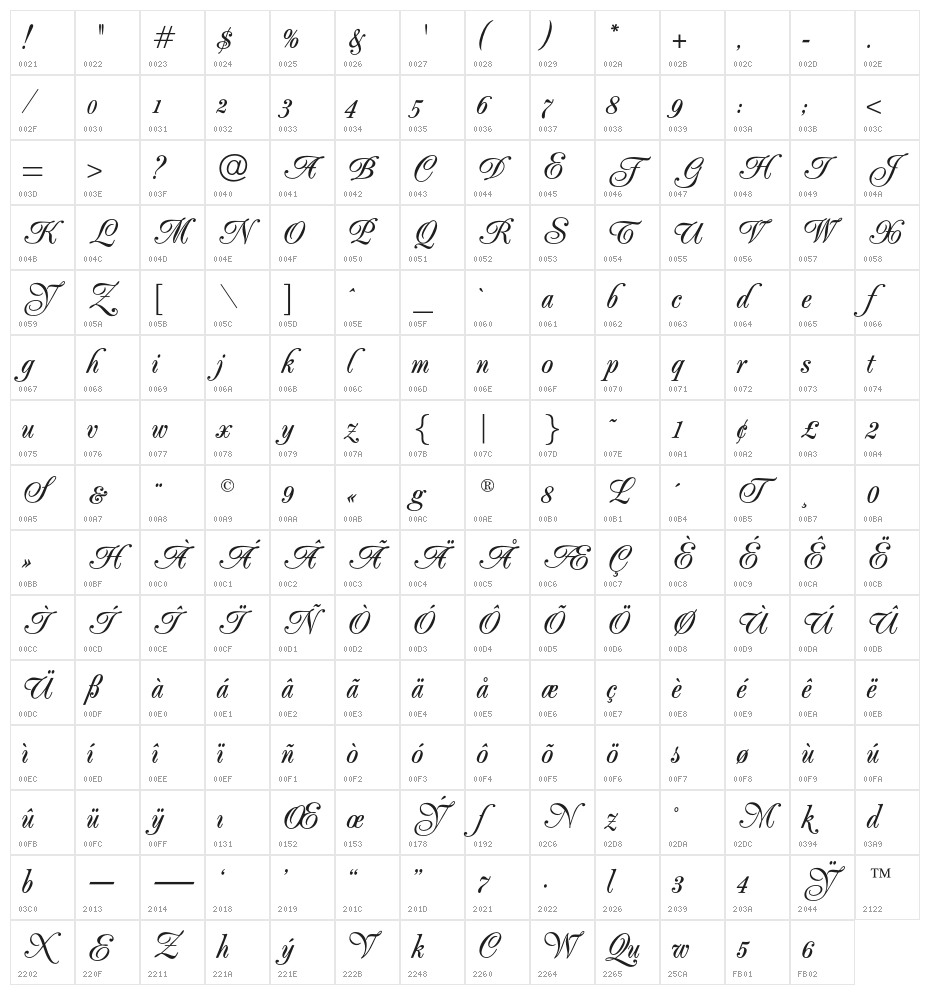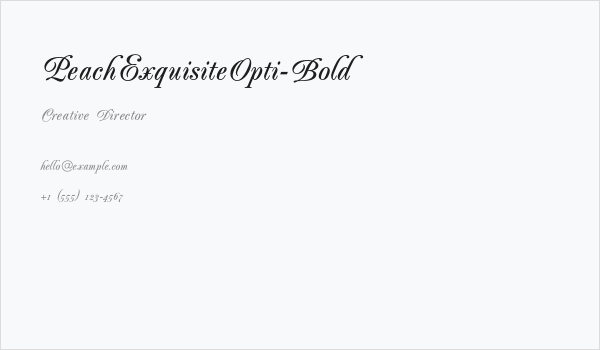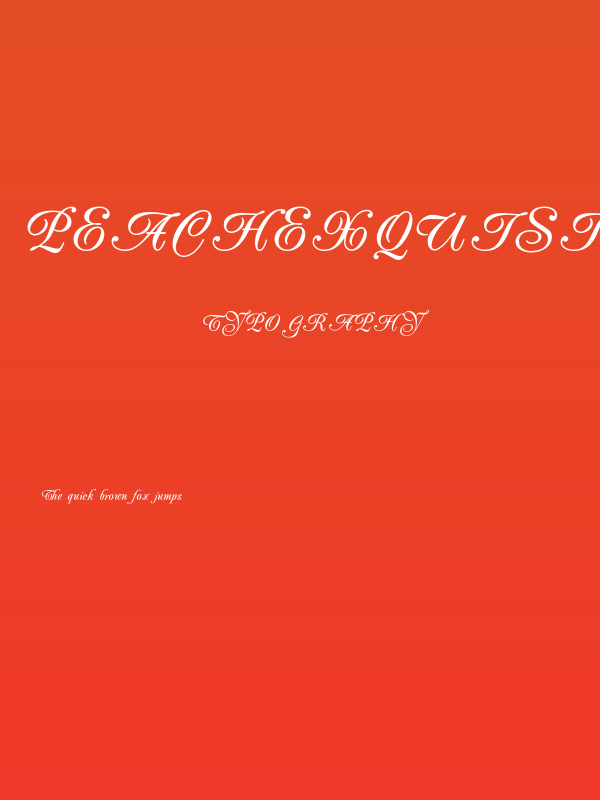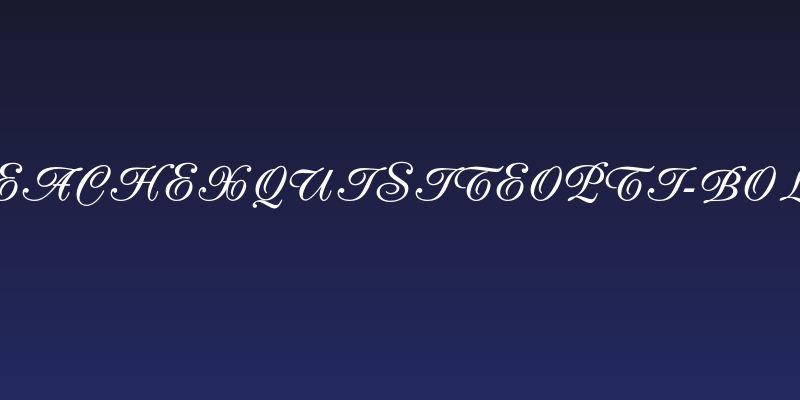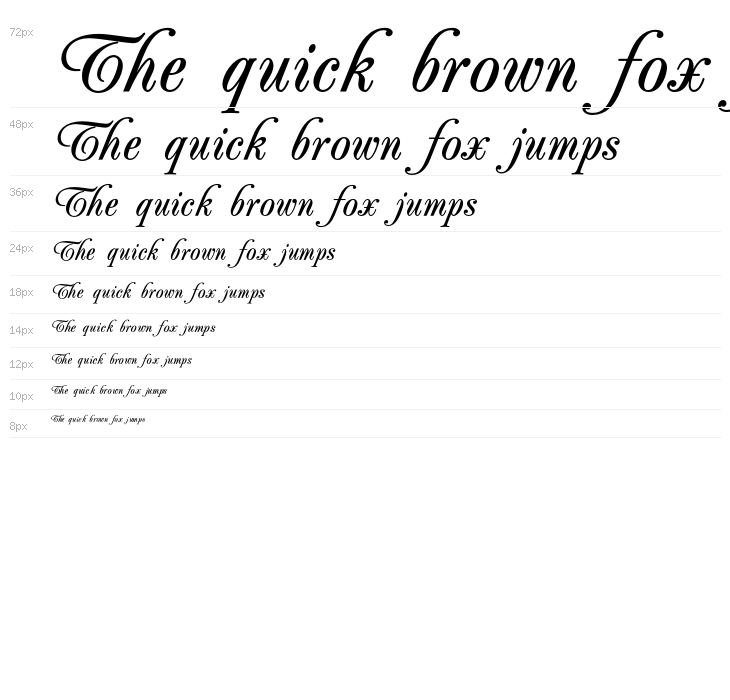
PeachExquisiteOpti-Bold Font
PeachExquisiteOpti-Bold Description
This font exudes elegance and sophistication with its flowing, cursive style. The uppercase letters are adorned with intricate swashes and flourishes, giving them a decorative and ornate appearance. The lowercase letters maintain a consistent slant, enhancing the script-like quality of the font. Numbers and special characters are designed with the same attention to detail, ensuring a cohesive look across all elements. The overall design is reminiscent of classic calligraphy, making it suitable for formal and luxurious applications.
| Overall Style | Classic |
| Use Case | Logos, Invitations, Branding |
| Proposed Projects | Ideal for wedding invitations, luxury branding, elegant stationery, and high-end product packaging. |